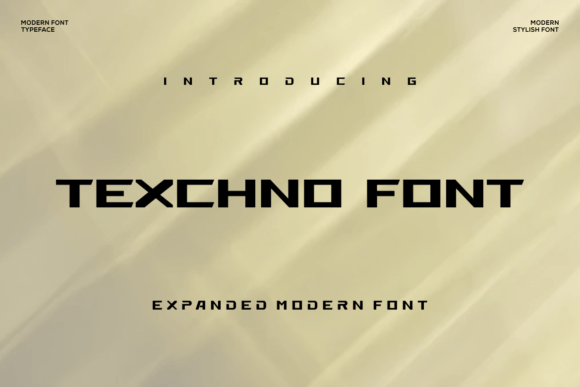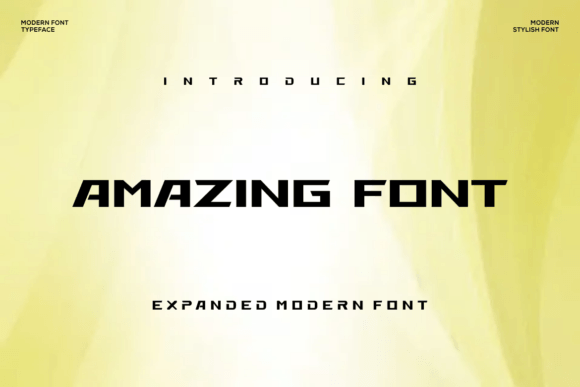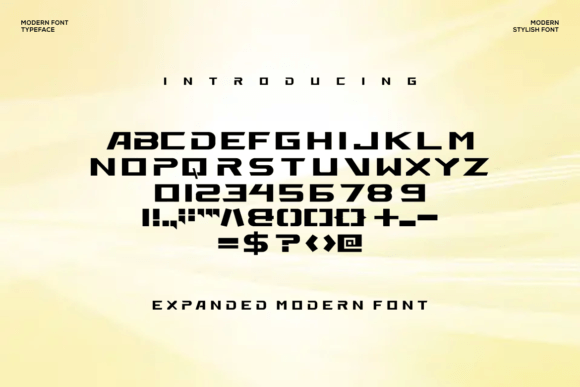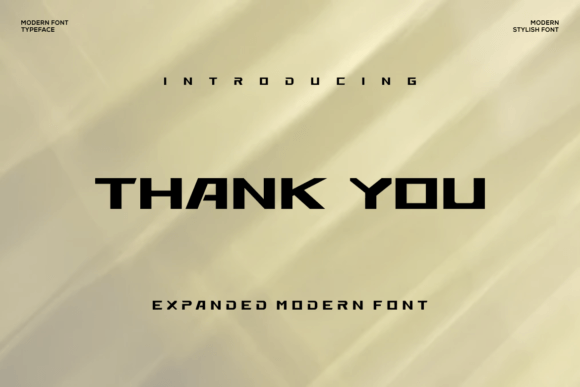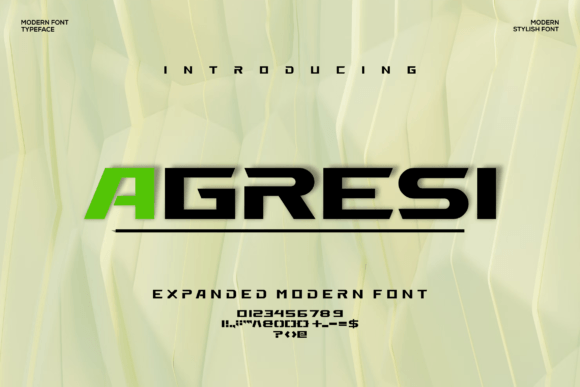
Introducing Agresi Font: The Modern Display Font You Need
Have you ever been in the middle of a design project, and suddenly, you’re stuck on finding the perfect font? I recall a recent experience where I was working on a branding project for a fashion client, and I just couldn’t find a font that screamed modernity and boldness. That’s when I discovered **Agresi Font**, a game-changing modern font that has become an essential part of my design toolkit.
What Makes Agresi Font Special?
Agresi Font is a bold and authentic display font, perfect for any branding project, including logos, t-shirt printing, creative products, and more. Its extraordinary versatility makes it suitable for a variety of contexts, from digital platforms to print materials.
An Honest Review of Agresi Font
- ✨ Unique and Eye-catching: Agresi Font stands out with its modern and bold design, making any text instantly noticeable.
- ✅ Highly Versatile: Whether you’re working on a logo, a t-shirt design, or a creative product, this font adapts seamlessly.
- 💼 Professional and Clean: Despite its boldness, Agresi Font maintains a clean and professional look, suitable for business and personal projects alike.
While Agresi Font is incredibly versatile and useful, there are a few minor considerations:
- ⚠️ Legibility at Small Sizes: Due to its bold nature, Agresi Font might not be the best choice for body text or small sizes, where readability could be compromised.
- 🤔 Overuse: Given its striking appearance, it’s easy to overuse Agresi Font. Balance is key to ensuring your design doesn’t become overwhelming.
The Backstory of Agresi Font
The inspiration behind Agresi Font comes from a desire to merge modernity with readability. The designer aimed to create a font that could serve as a statement piece in any design project while maintaining clarity and professionalism. The result is a bold yet clean font that can elevate any creative work.
Q: What is Agresi Font best used for?
A: Agresi Font is best used for projects requiring a bold and modern display font, such as logos, t-shirt designs, and creative products.